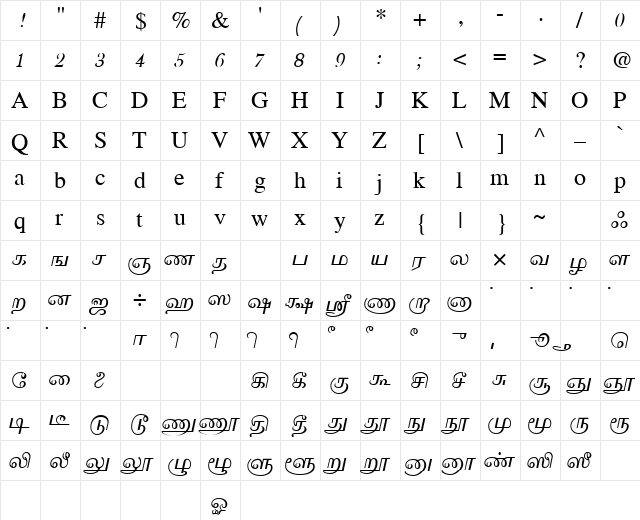
AkOfficeTmlValluvan Normal
Design Context for AkOfficeTmlValluvan Typeface
AkOfficeTmlValluvan takes a measured approach to typography — its balanced proportions and neutral character make it a reliable workhorse for both digital and print work.